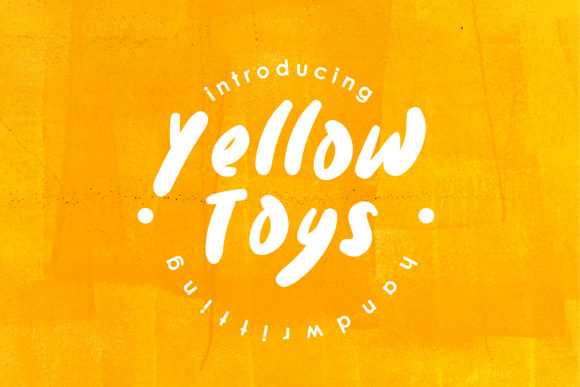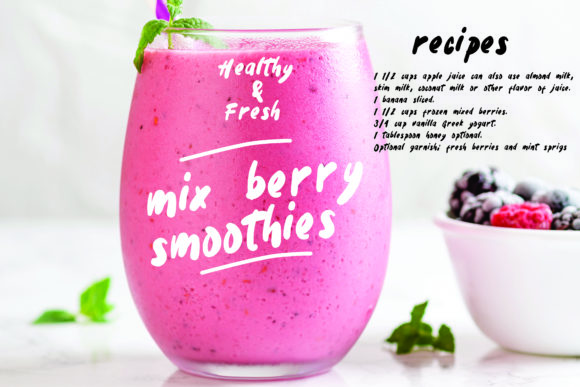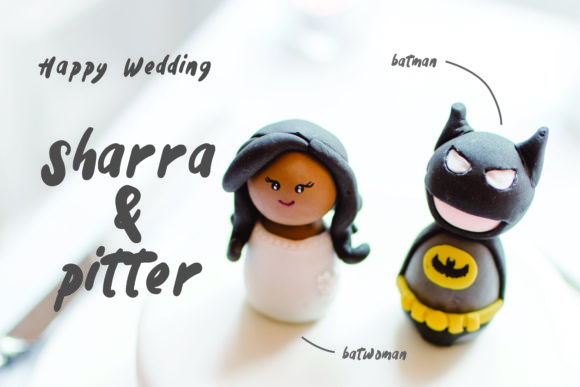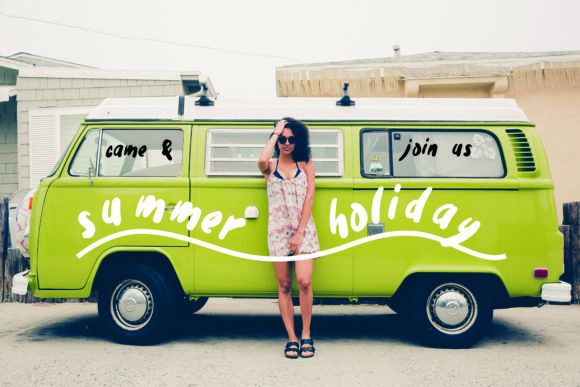
Yellow Toys Font
About Yellow Toys Font
The Yellow Toys is a fun font. It has a bold style and a great readability. It can be used for quotes, titles, layouts, and much more!